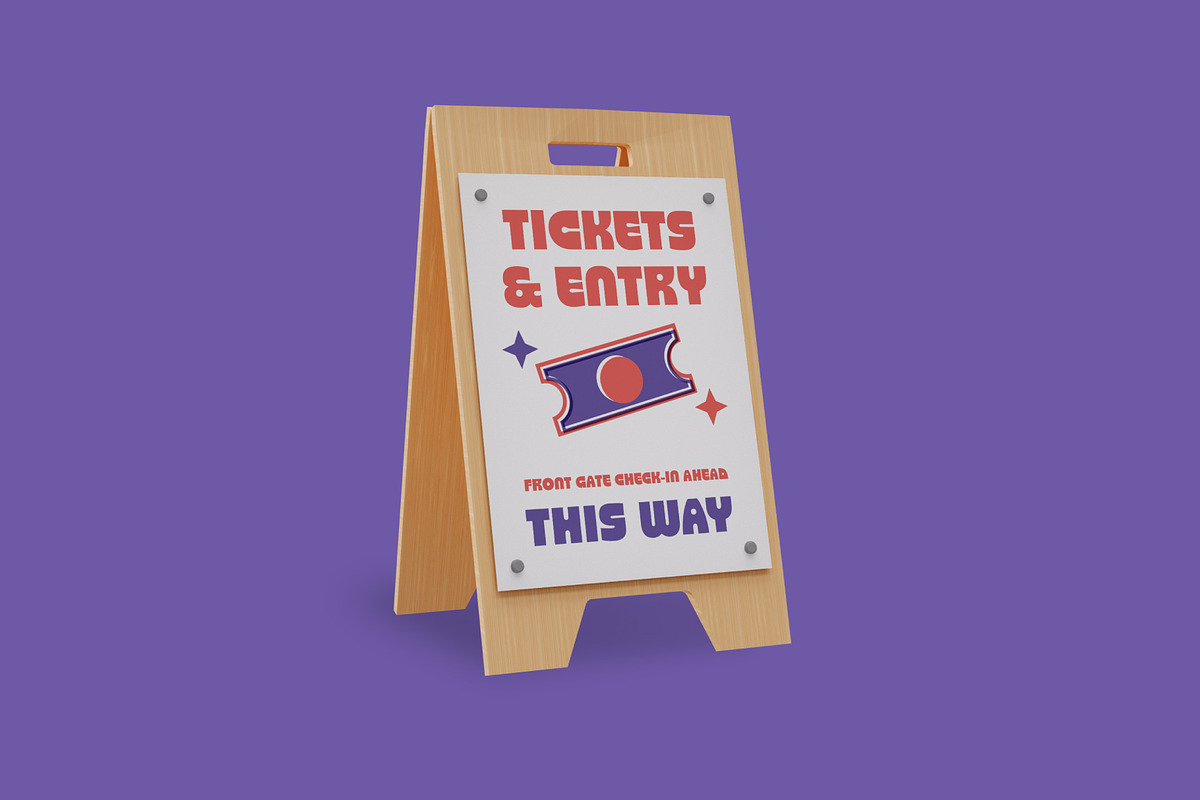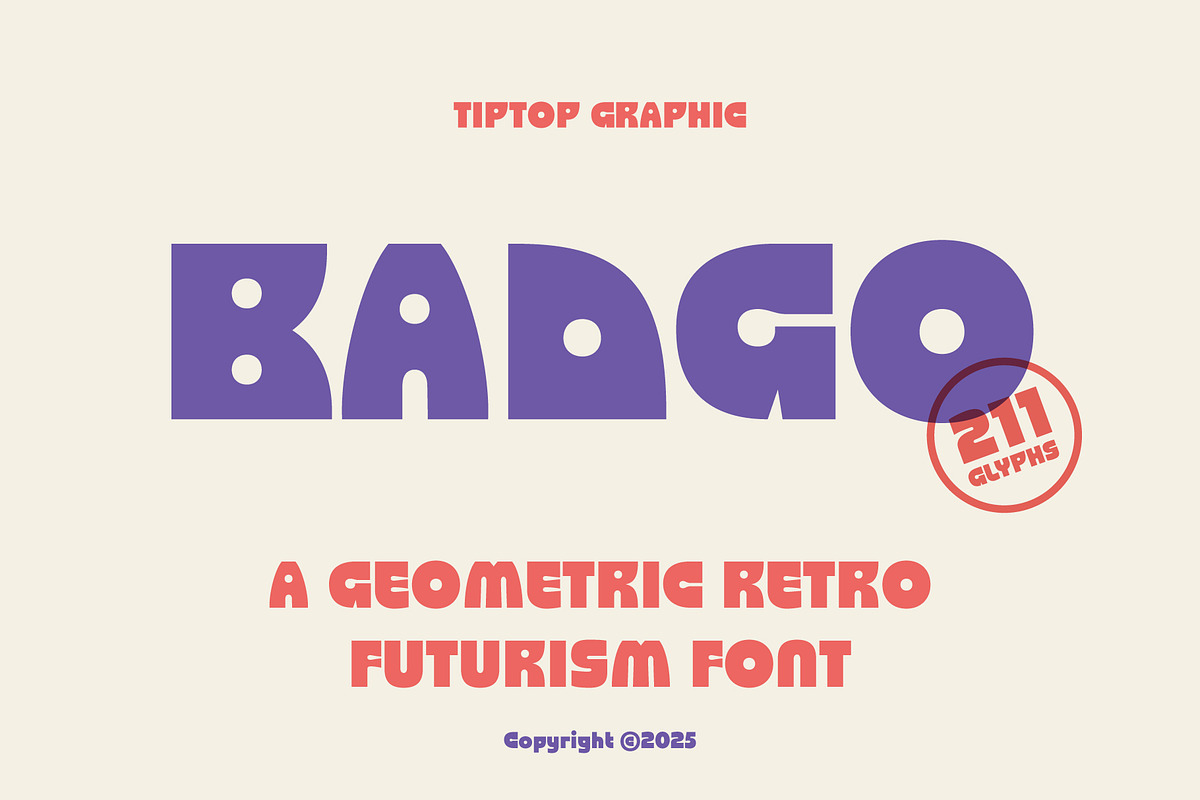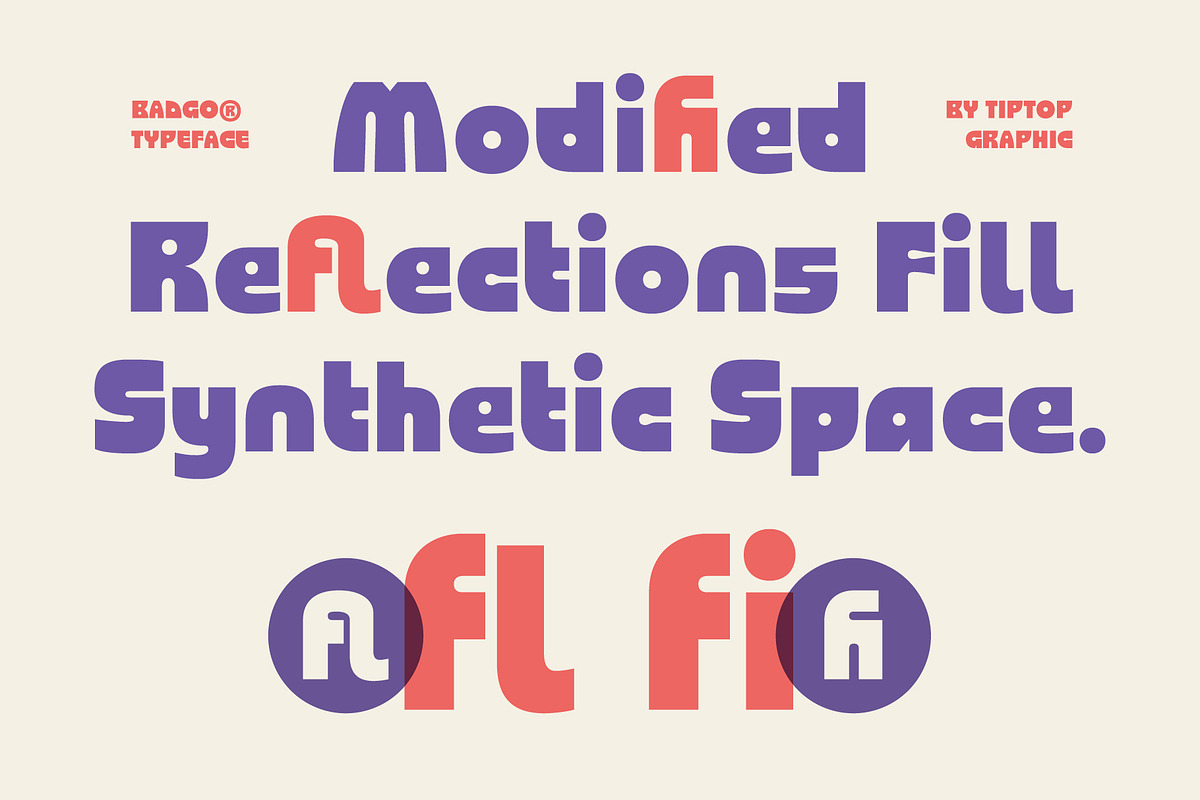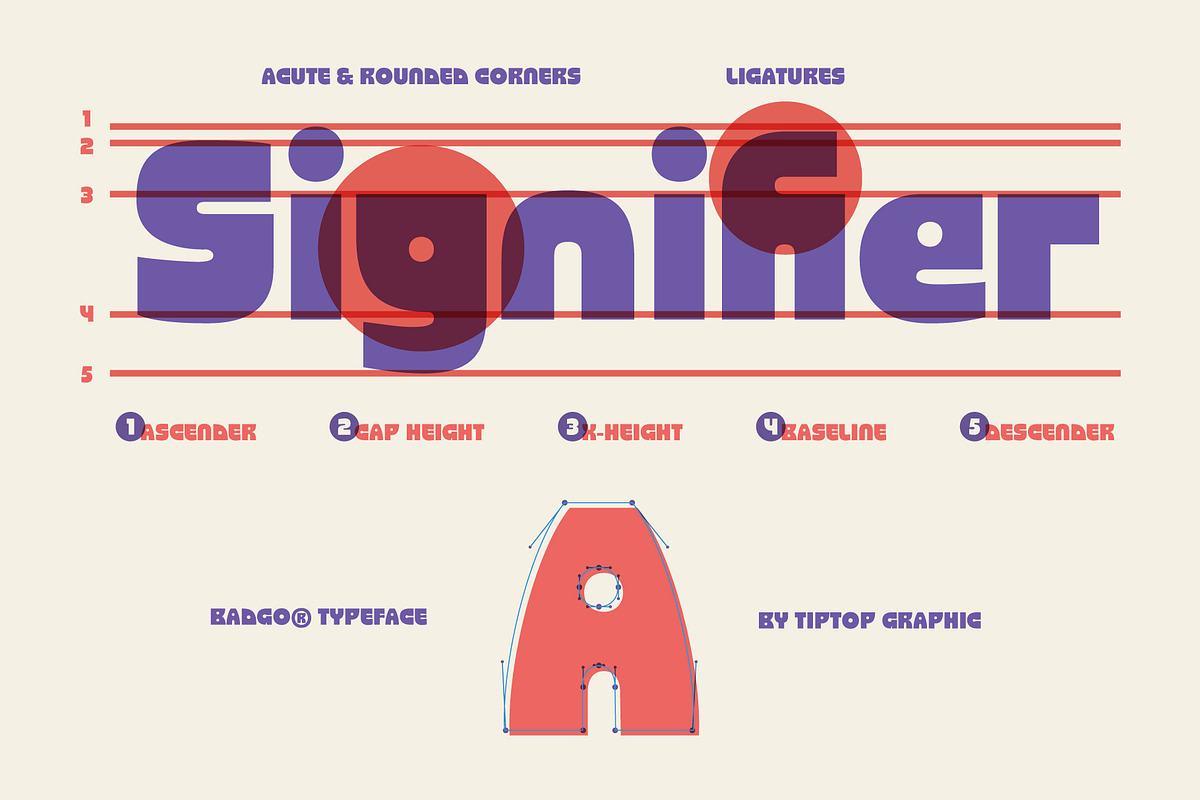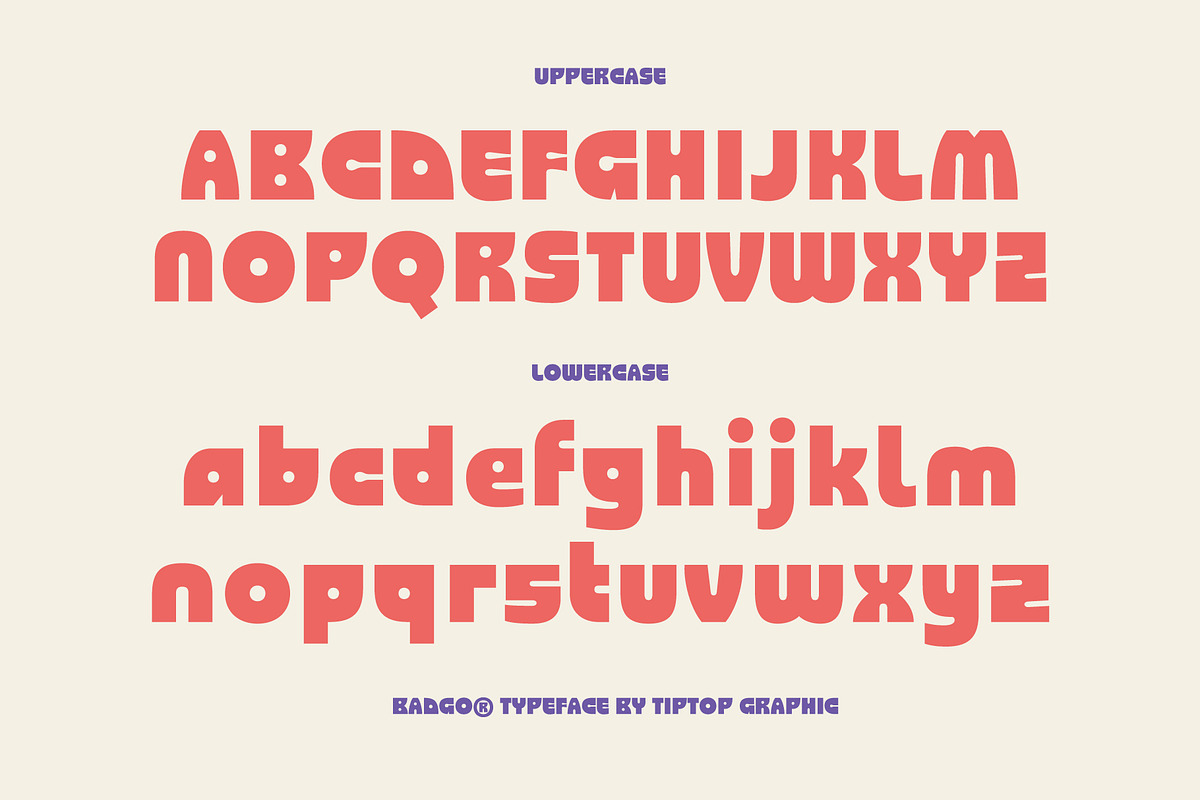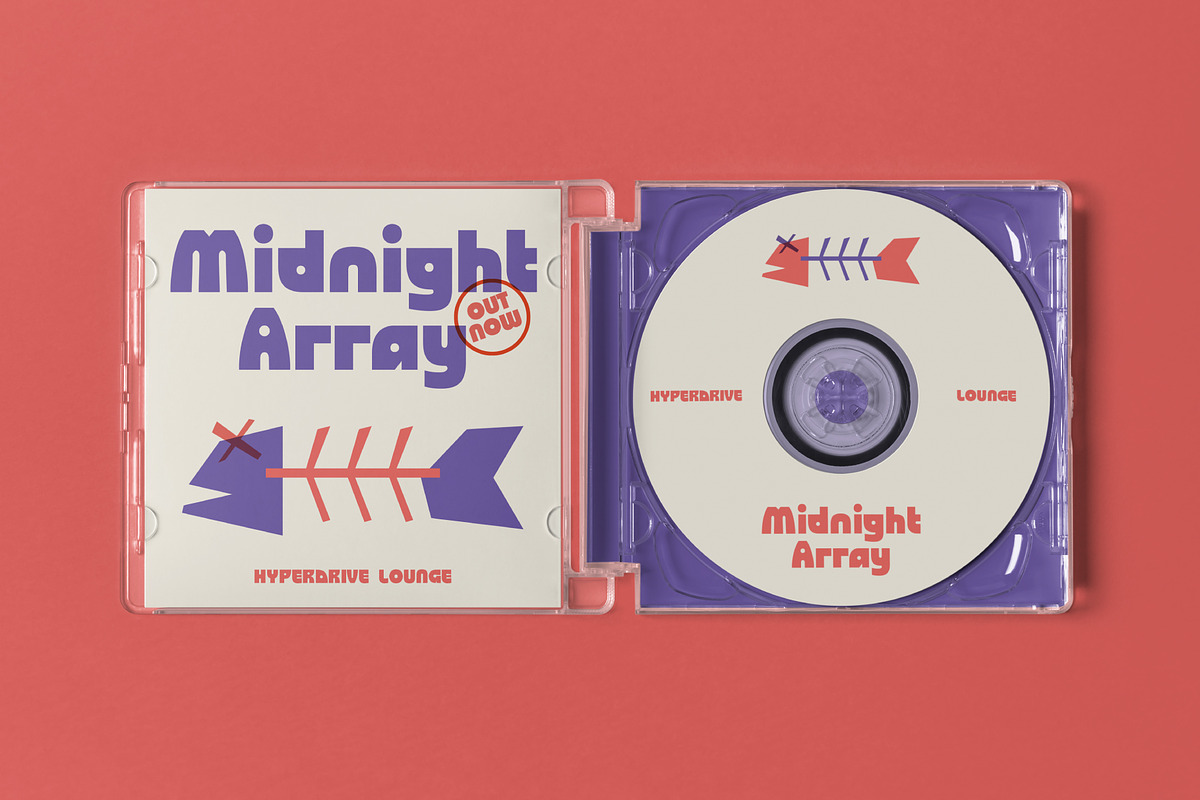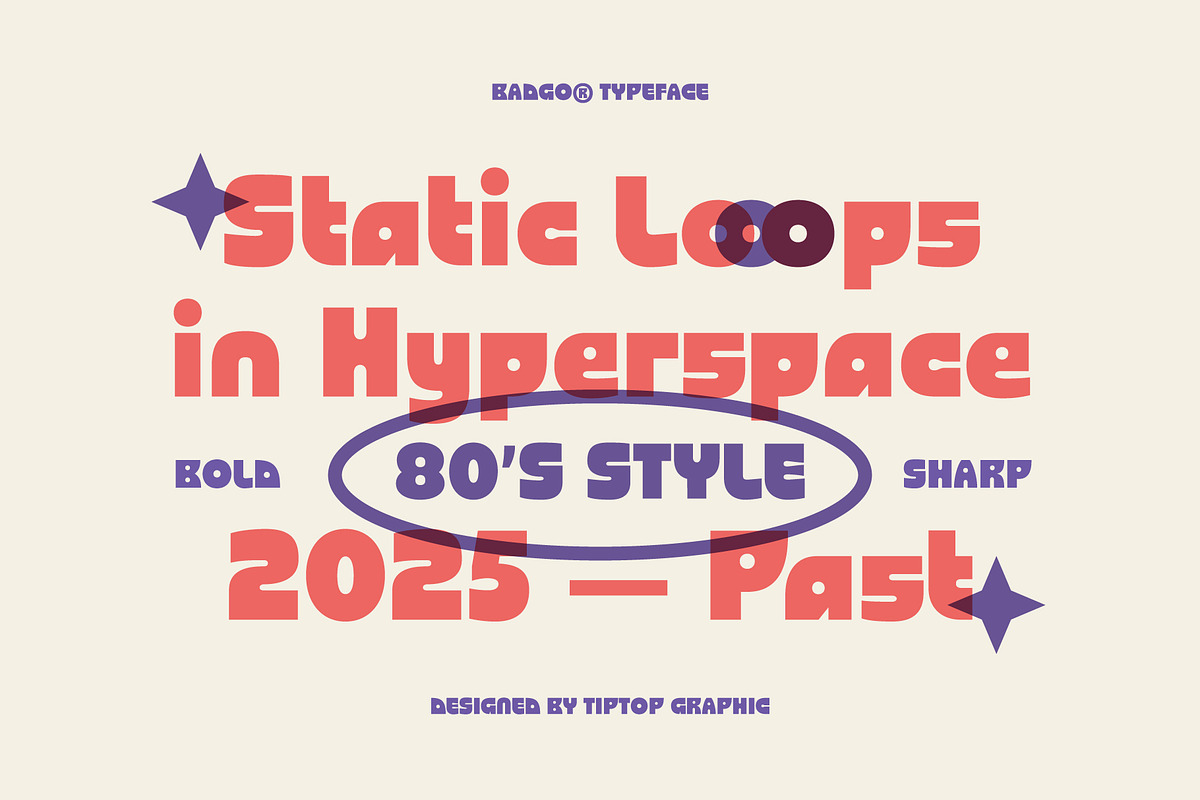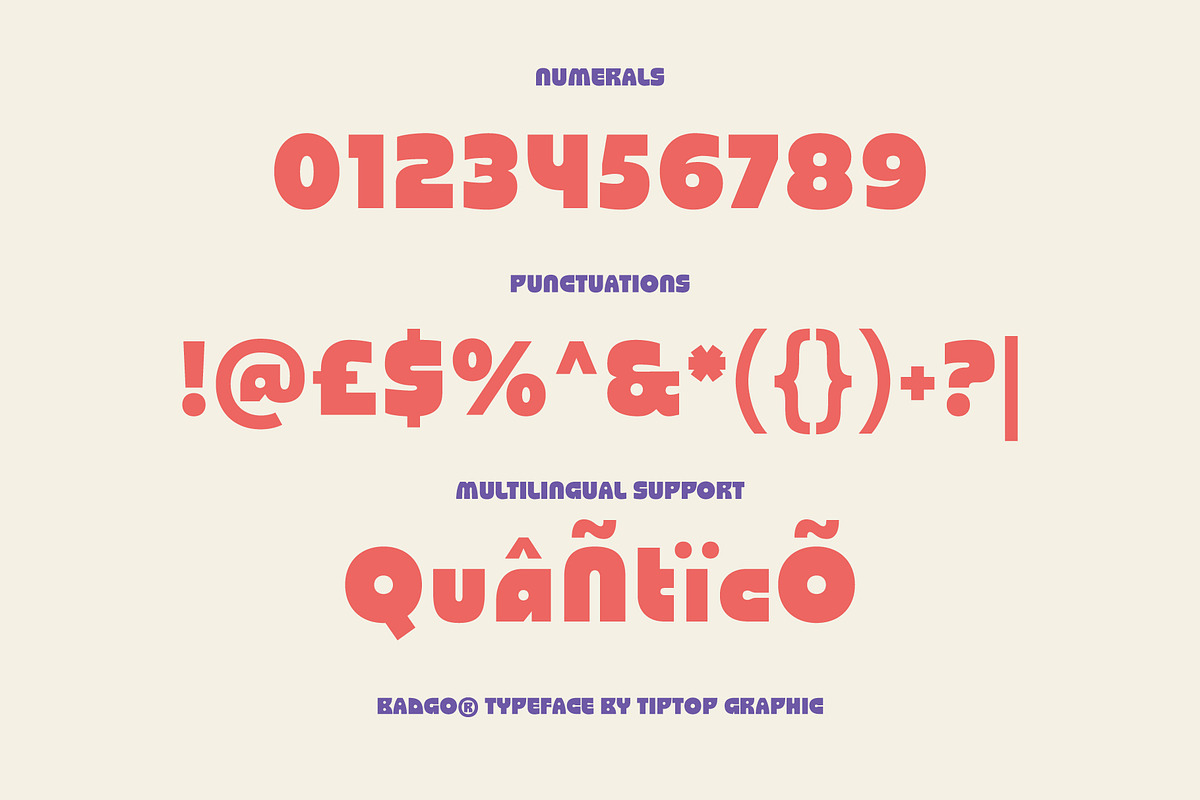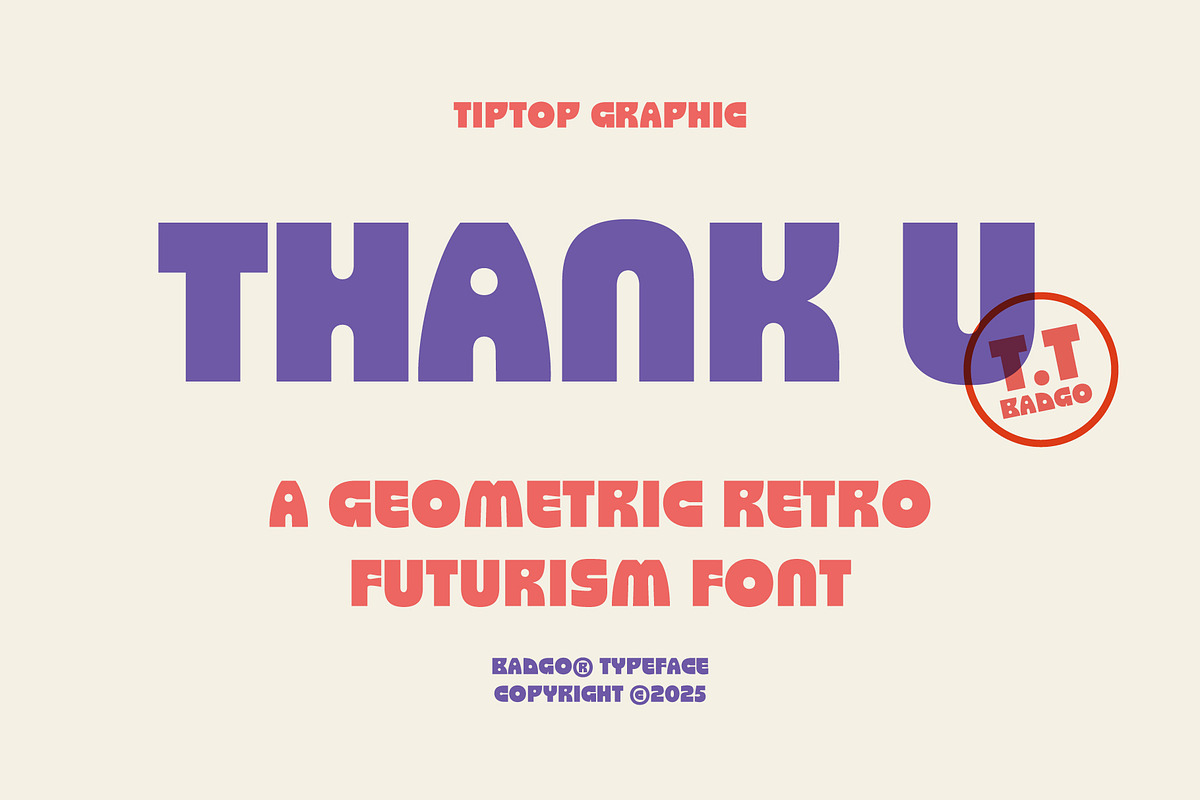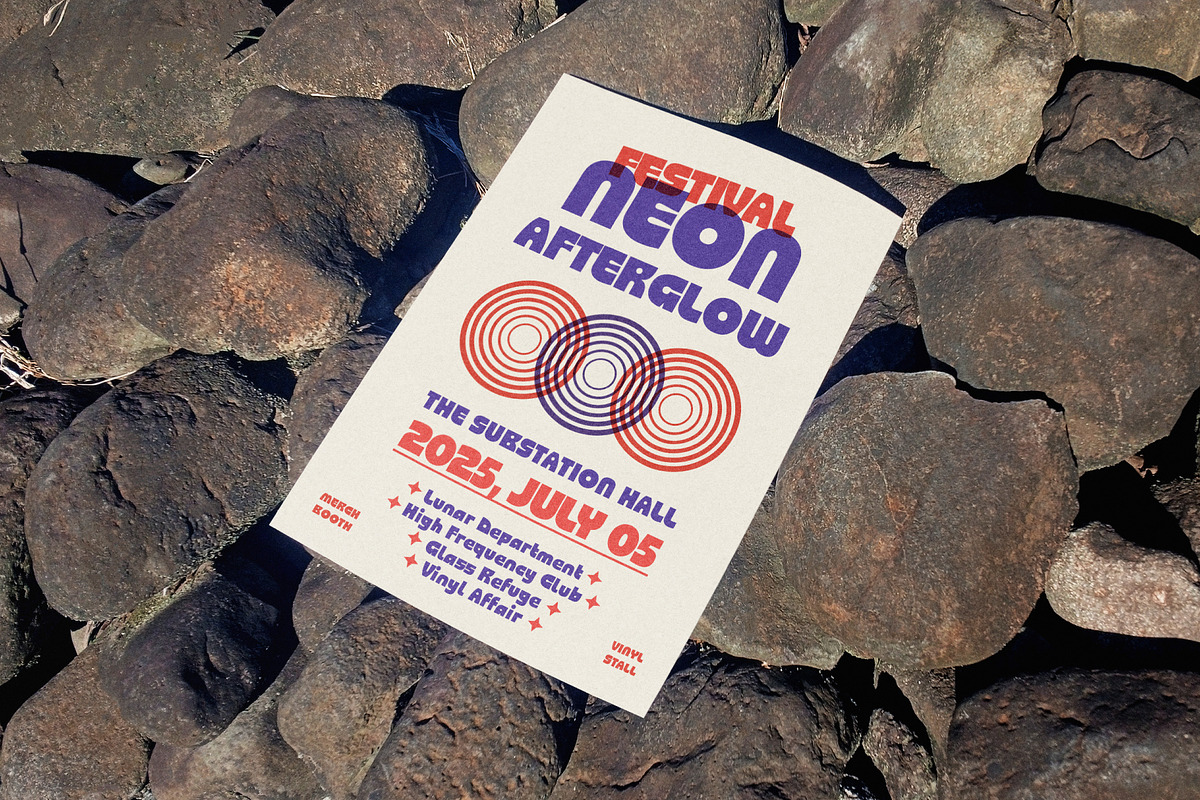
Badgo - Geometric Retro Futurism
Badgo – Geometric Retro Futurism Font
Badgo is a bold geometric font inspired by retro futurism, combining vintage charm with a modern edge. Its clean lines, sharp angles, and unique letterforms. With a sleek and stylish vibe, Badgo brings a futuristic twist to Geometric Short Top.